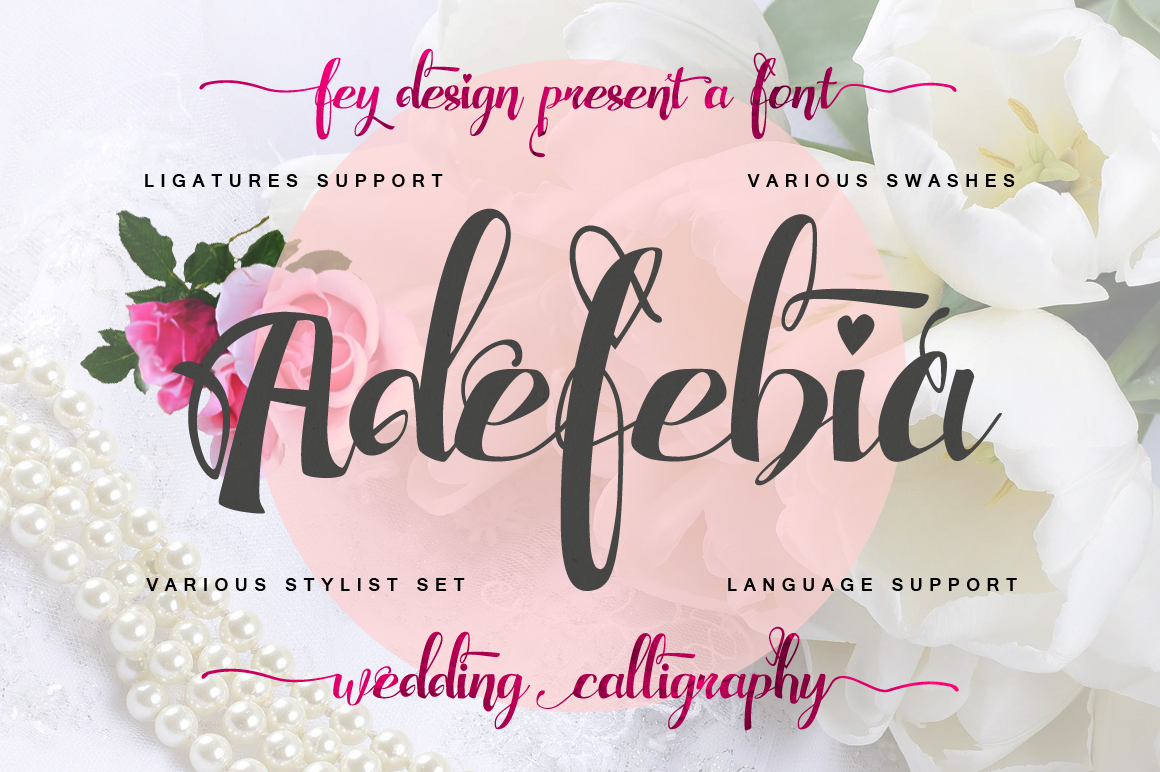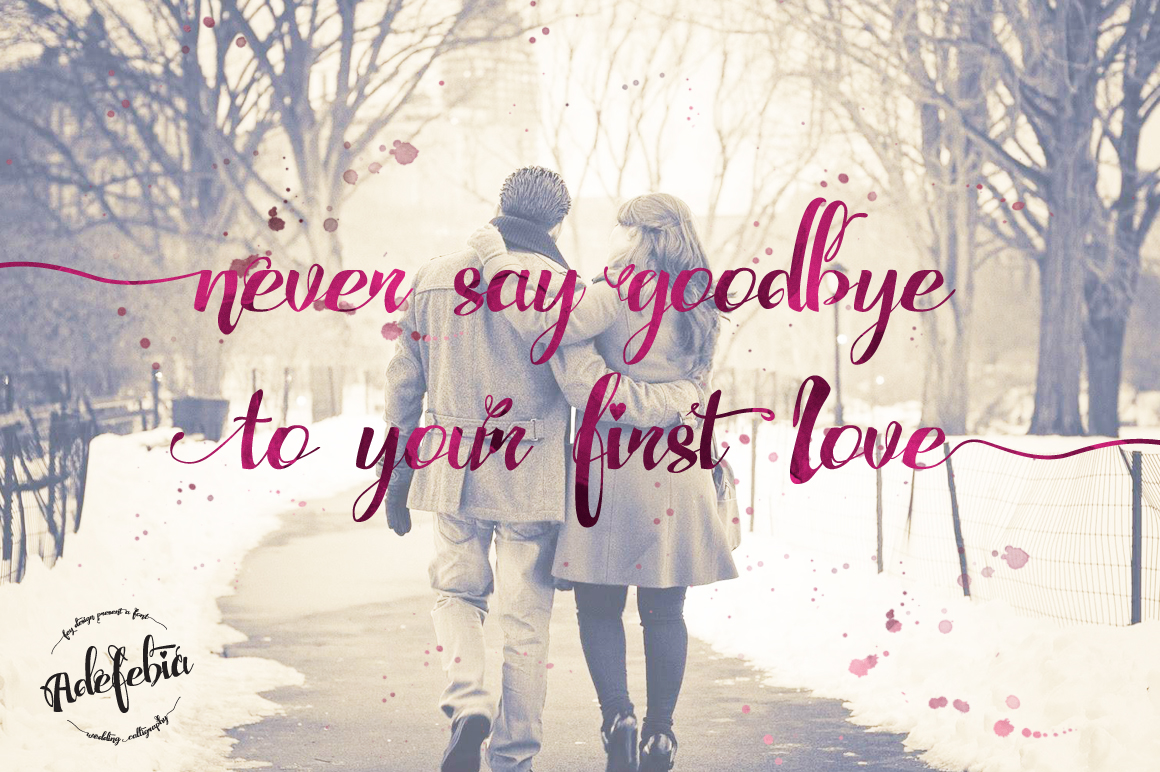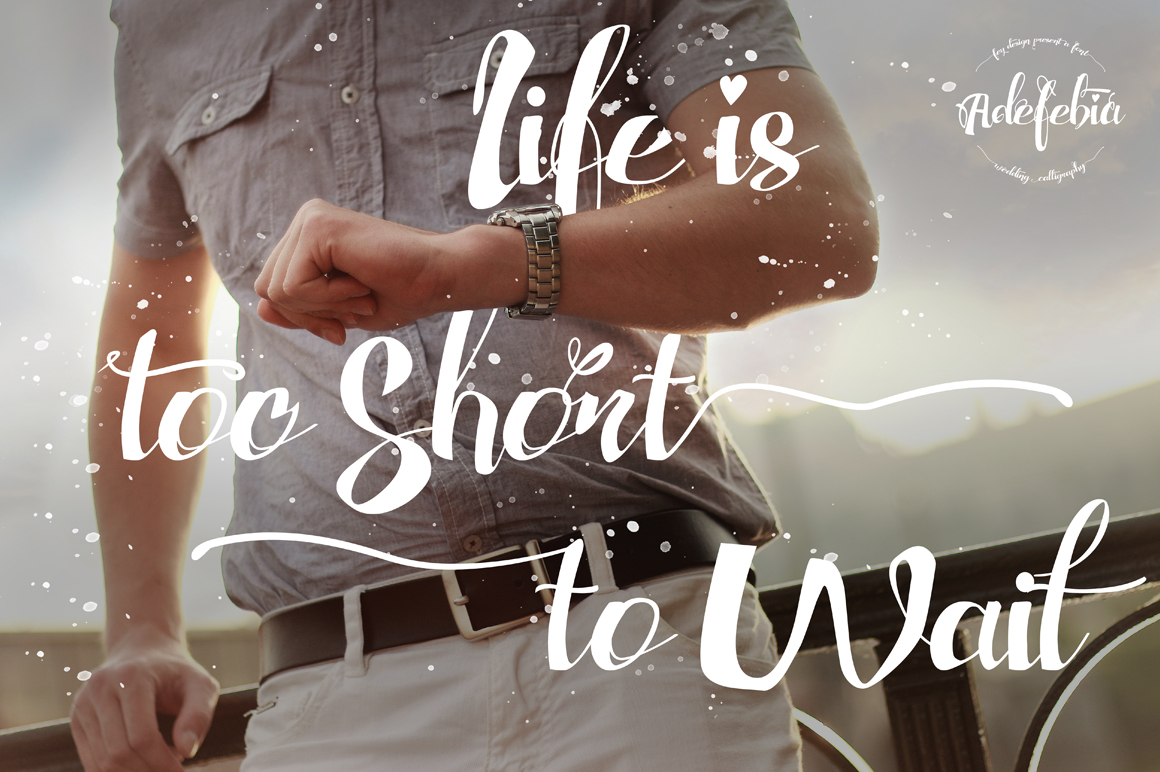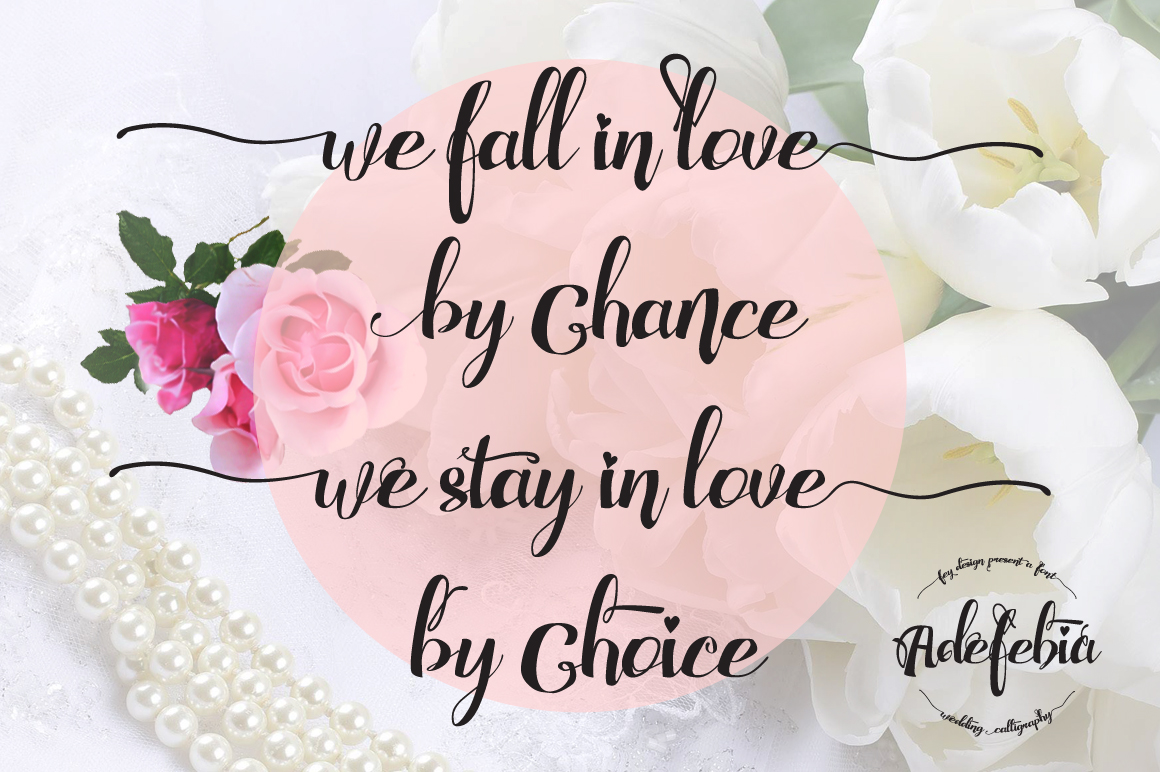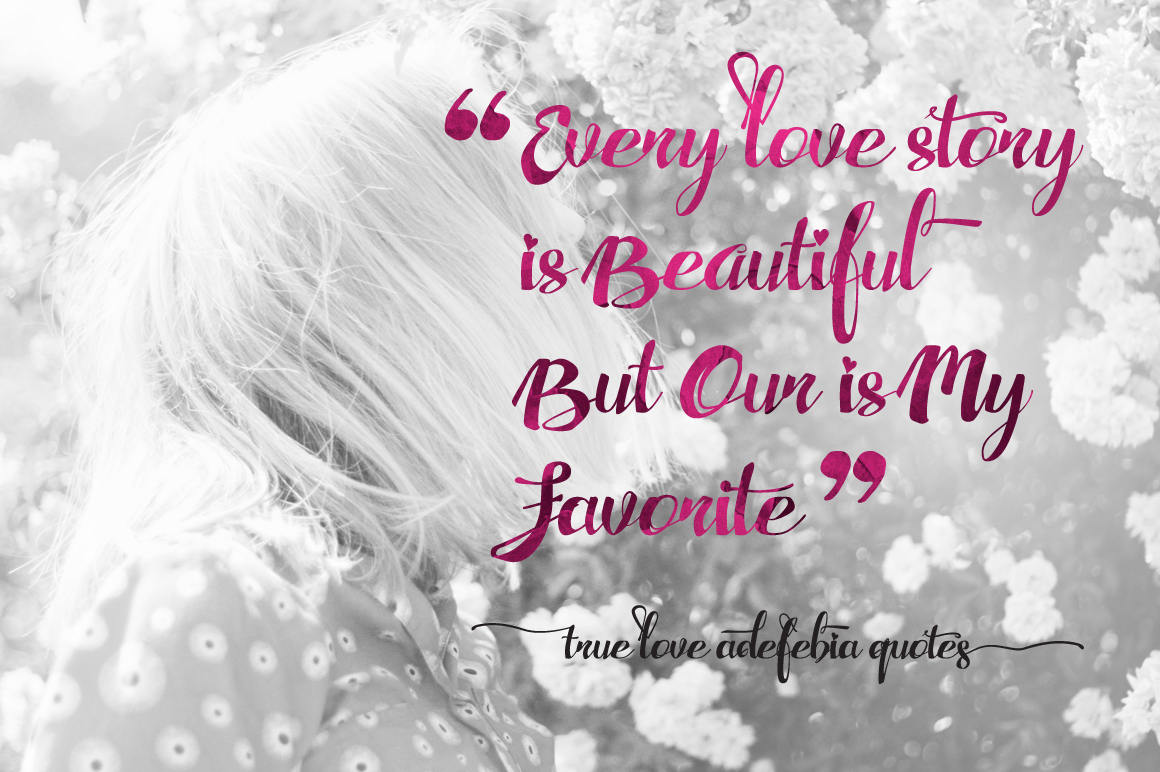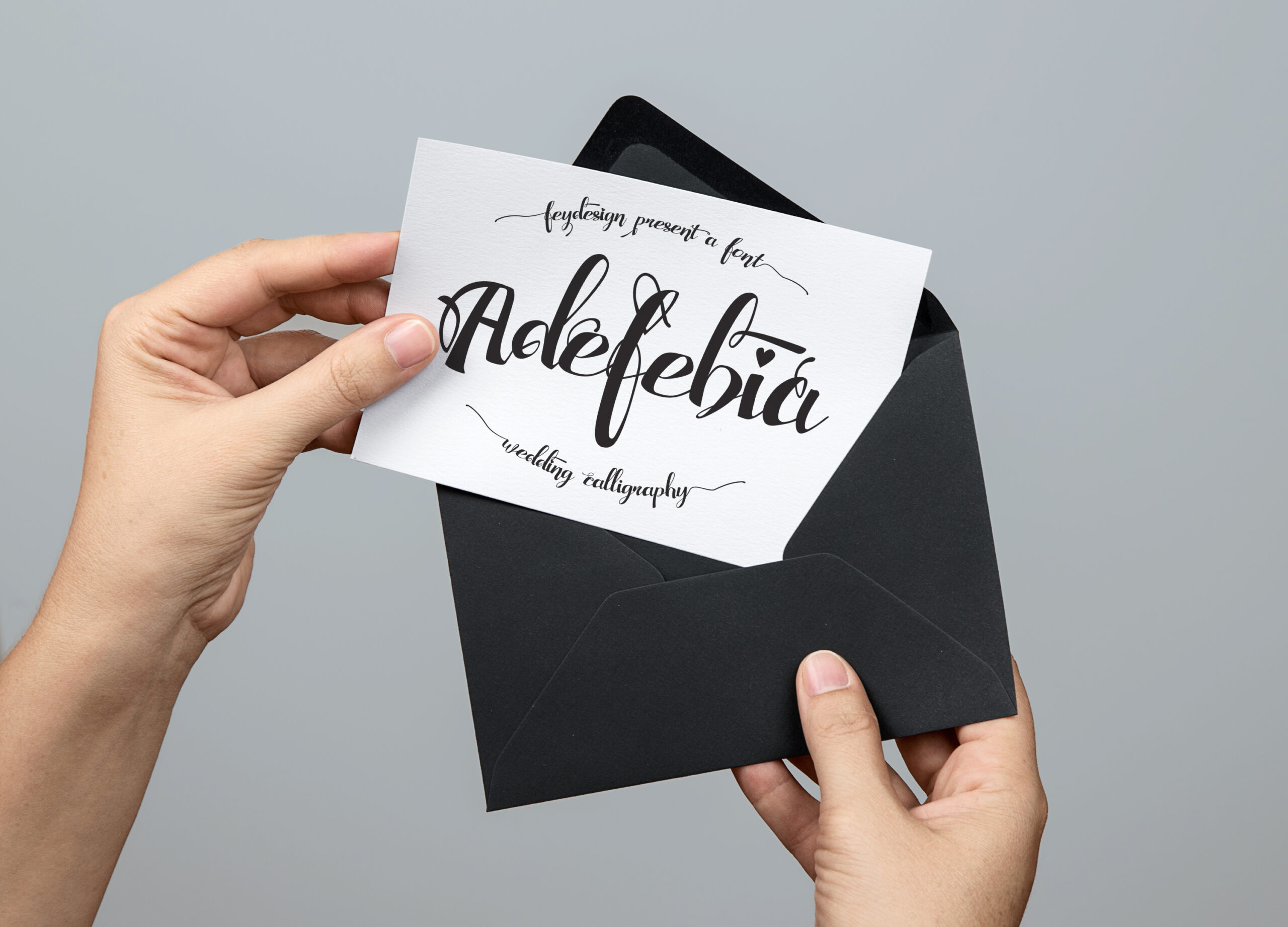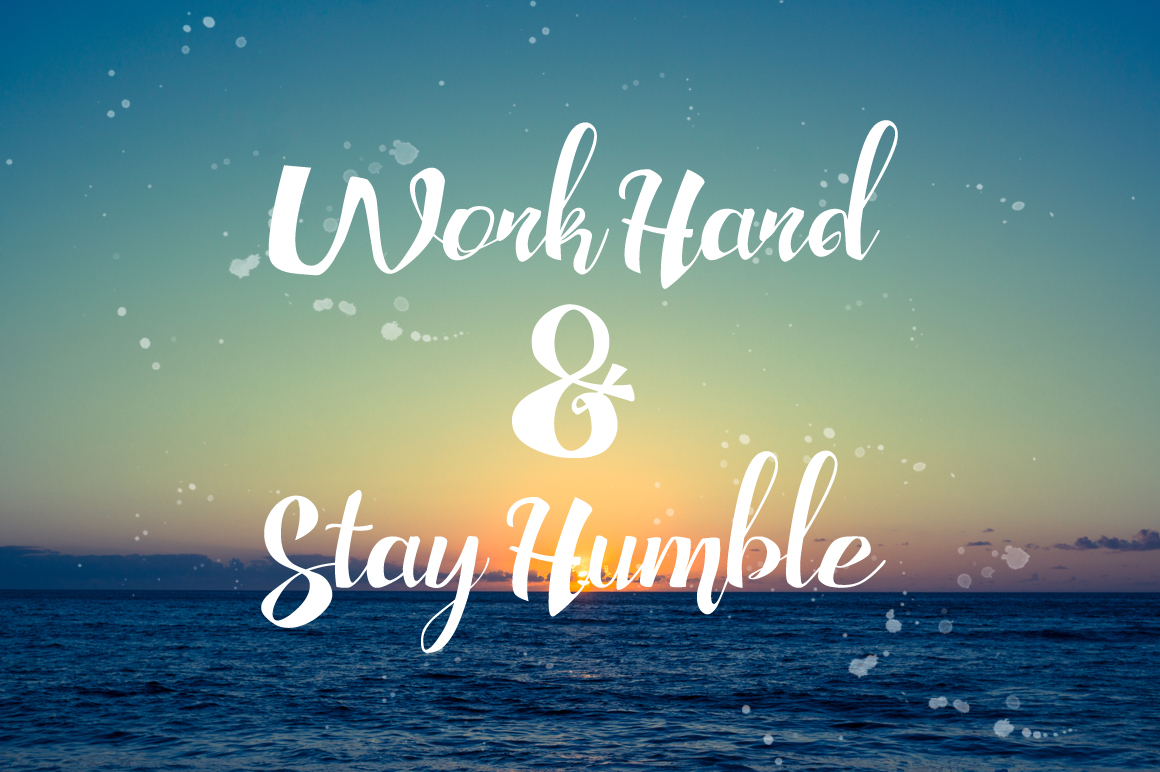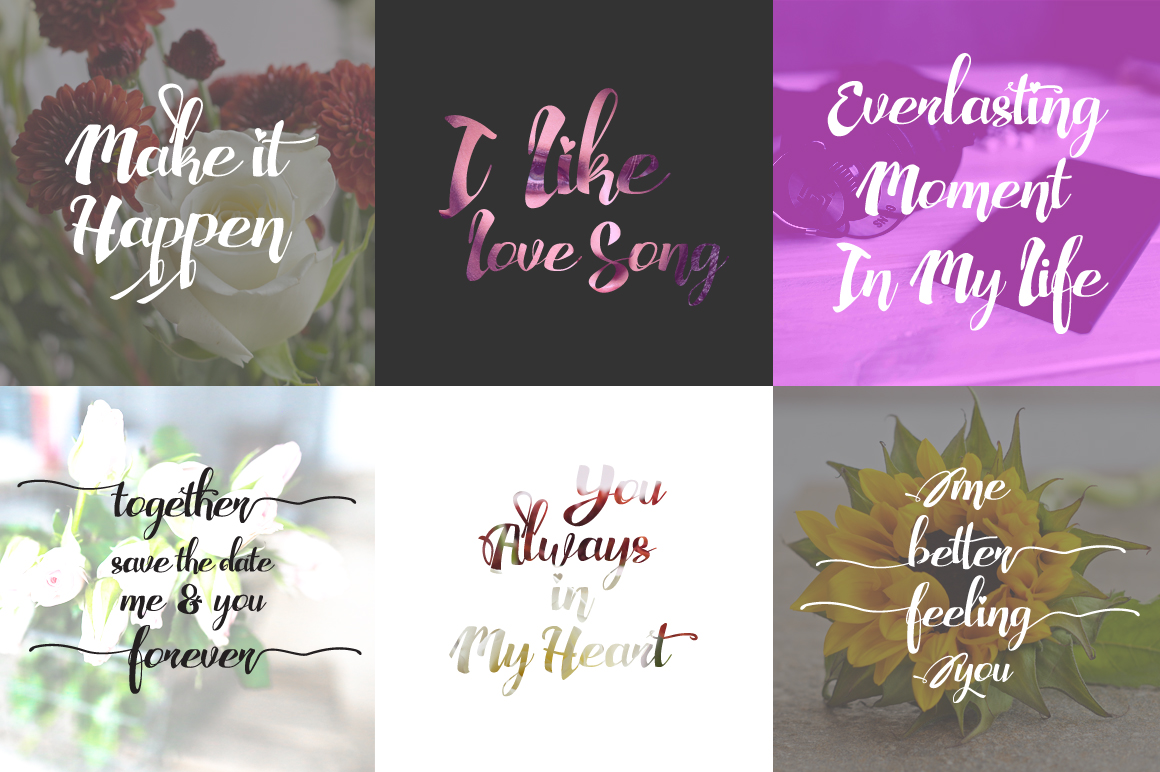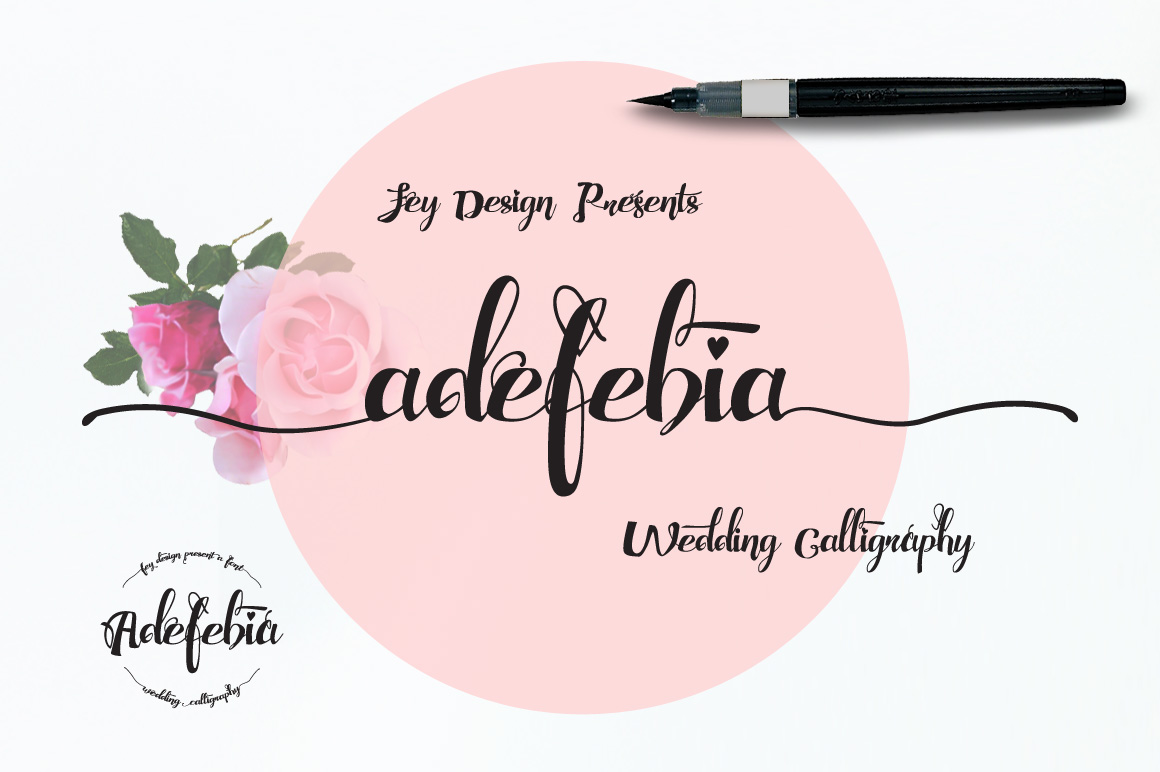
HomeScript FontsAdefebia Font Script Fonts Adefebia Font FacebookXPinterestWhatsApp Adefebia Font Poster 2 Adefebia Font Poster 3 Adefebia Font Poster 4 Adefebia Font Poster 5 Adefebia Font Poster 6 Adefebia Font Poster 7 Adefebia Font Poster 8 Adefebia Font Poster 9 Adefebia Font Poster 10 About Adefebia Font Adefebia is a wedding-inspired script that features an modern, elegant calligraphic style. DOWNLOAD NOW People also explored Kiddy Font Harmony Coral Bella Canvas 3001 Funky Tee Mockup Eranity Font Vine Font Groens Font Happy Easter Font Geometrix Font Ridewell 256 0 TagsAdefebia Font Previous articleAirin FontNext articleSmoothy Font LEAVE A REPLY Cancel reply Comment: Please enter your comment! Name:* Please enter your name here Email:* You have entered an incorrect email address! Please enter your email address here Website: Save my name, email, and website in this browser for the next time I comment. Personal Use Free Retro Free Personal Use Free Read more about this font Rakesly Personal Use Free Read more about this font Setta Personal Use Free Read more about this font Bolt Electric Personal Use Free Read more about this font BLOG How to Install and Use Fonts on Windows, macOS, and Web Projects How to Install and Use Fonts on Windows, macOS, and Web Projects Fonts are a crucial part of design and branding. Whether you’re designing a... 5 Fonts That Will Dominate Design Trends in 2026 Elegant Wedding Invitation Fonts – Handwritten & Script Fonts Best Fonts for YouTube Videos: Make Your Thumbnails Stand Out